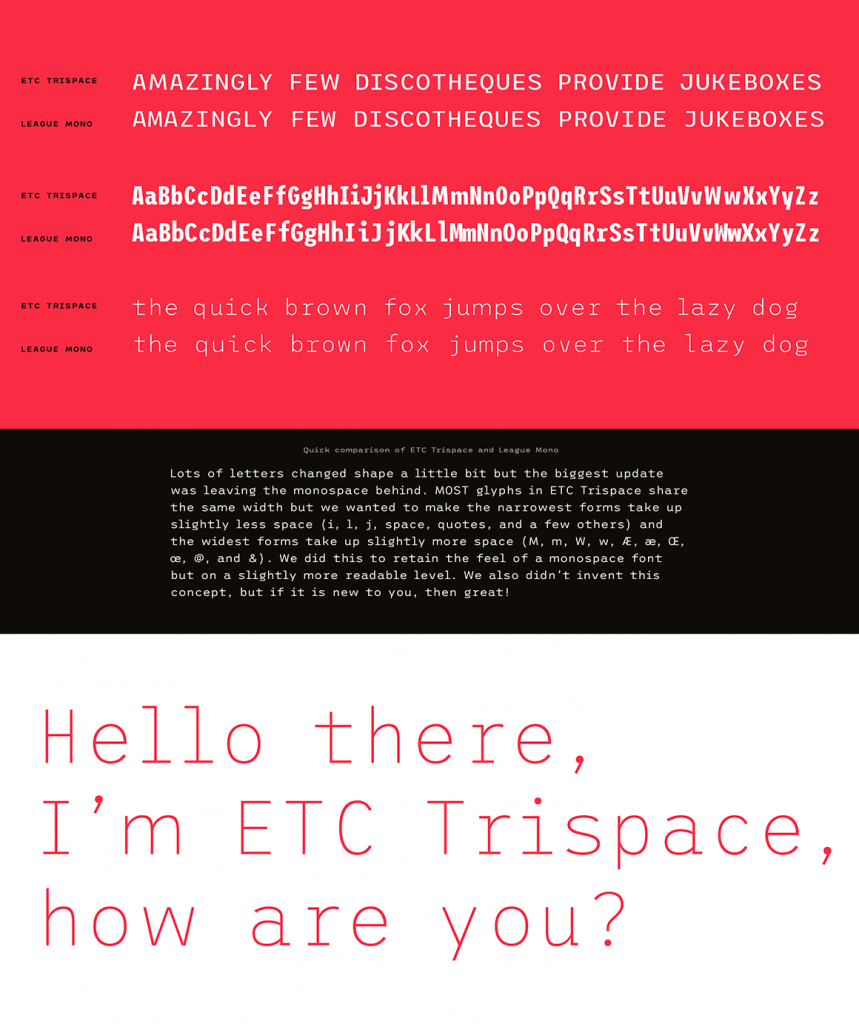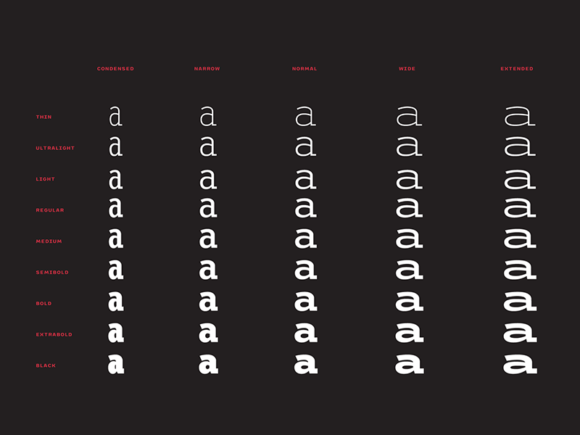
ETC Trispace is a free font family designed by Tyler Finck, where all glyphs occupy one of three possible widths. It is based on League Mono (also designed by Tyler) but with the difference that includes lots of changed glyphs and it’s not monospaced.
Now ETC Trispace is free to download and includes 45 styles (9 Regular, 9 Condensed, 9 Narrow, 9 Wide, 9 Extended with weights from Thin to Black and matching italics) plus a variable font.